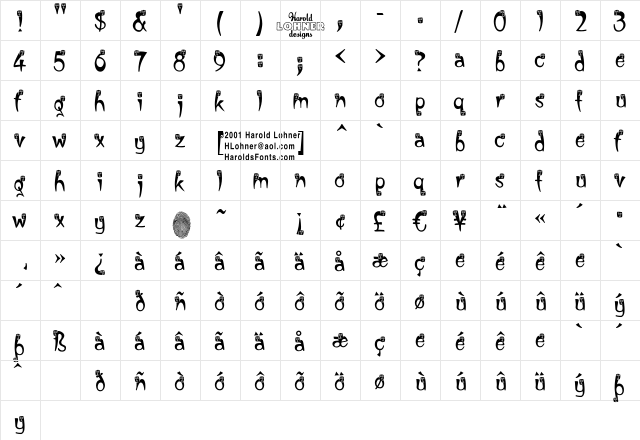
Shazi Regular
| Copyright | Shazi computer font v1.0 01 Harold Lohner "  " HaroldsFonts.com Inspred by an example of 13th century Islamic silverwork by Shazi in the collection of the Smithsonian Institution. |
Design Context for Shazi Typeface
Shazi is a composed and adaptable typeface that performs quietly and consistently across a wide range of design contexts.